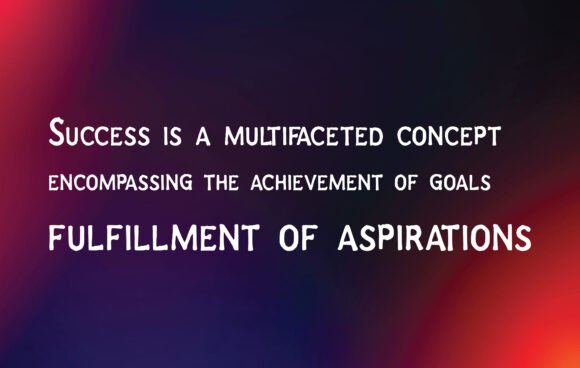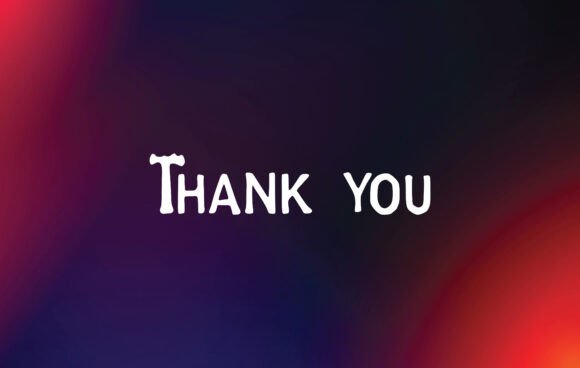
Discover the Magic of Alaska Font: Elevate Your Creative Vision
Have you ever stared at a blank canvas, unsure of where to start, and then suddenly a burst of creativity hits you? You see the perfect design, the perfect words, and the perfect style. This is exactly what the Alaska Font can help you achieve. A beautiful, handwritten font, designed to take your creative ideas to new heights, Alaska Font is the perfect companion for designers looking to create stunning logos, branding, and quotes.
With its elegant and sophisticated feel, the Alaska Font is a valuable addition to any designer’s toolkit. Whether you’re working on a personal project or a commercial one, this font is sure to make your designs stand out from the crowd. So why settle for an ordinary font when you can have the extraordinary Alaska Font?
Key Features of Alaska Font
- Font Family: Alaska Font is a sans-serif font family designed to evoke the feeling of the Alaskan wilderness.
- Character Count: Alaska Font contains over 600 characters, including uppercase and lowercase letters, numerals, punctuation, and special characters.
- Unique Characteristics: Alaska Font features a distinctive, rugged aesthetic with a mix of modern and traditional elements, making it perfect for outdoor-themed designs, adventure sports, and eco-friendly brands.
Alaska Font Review
As a designer, I was excited to dive into the Alaska Font and see what it had to offer. ✨ One of the things that immediately caught my eye was the unique, rustic feel of the font. It’s perfect for outdoor-inspired designs, such as adventure websites or nature-themed branding. The font’s irregularities and organic shapes give it a charming, handcrafted feel that’s hard to replicate with more traditional fonts.
Another strength of the Alaska Font is its versatility. ✨ It comes in a range of weights and styles, making it easy to use in everything from headlines to body text. The font also supports a wide range of languages, which is a big plus for designers working on international projects.
- ⚠️ Limited character set: While the Alaska Font supports many languages, it’s not as comprehensive as some other fonts. This might be a problem for designers working on projects that require a specific set of characters.
- ⚠️ Limited digital support: Alaska Font doesn’t come with as much digital support as some other fonts, such as Adobe fonts. This can make it harder to use in certain design software.
Overall, I think the Alaska Font is a great choice for designers looking for a unique, rustic feel. While it has some limitations, the font’s strengths make it a valuable addition to any design toolkit. With a little bit of planning and consideration, I think even the most complex projects can be handled with ease.
Tips for Getting the Most Out of Alaska Font
Use Alaska Font for titles, headings, and other text elements where you want to add a touch of rustic elegance.
Pair Alaska Font with other fonts to create a unique and eye-catching design.
Experiment with different font sizes and colors to achieve the desired effect.
Use Alaska Font for:
Outdoor and nature-themed designs
Rustic and vintage-inspired designs
Wedding and event invitations
Travel and adventure-themed designs